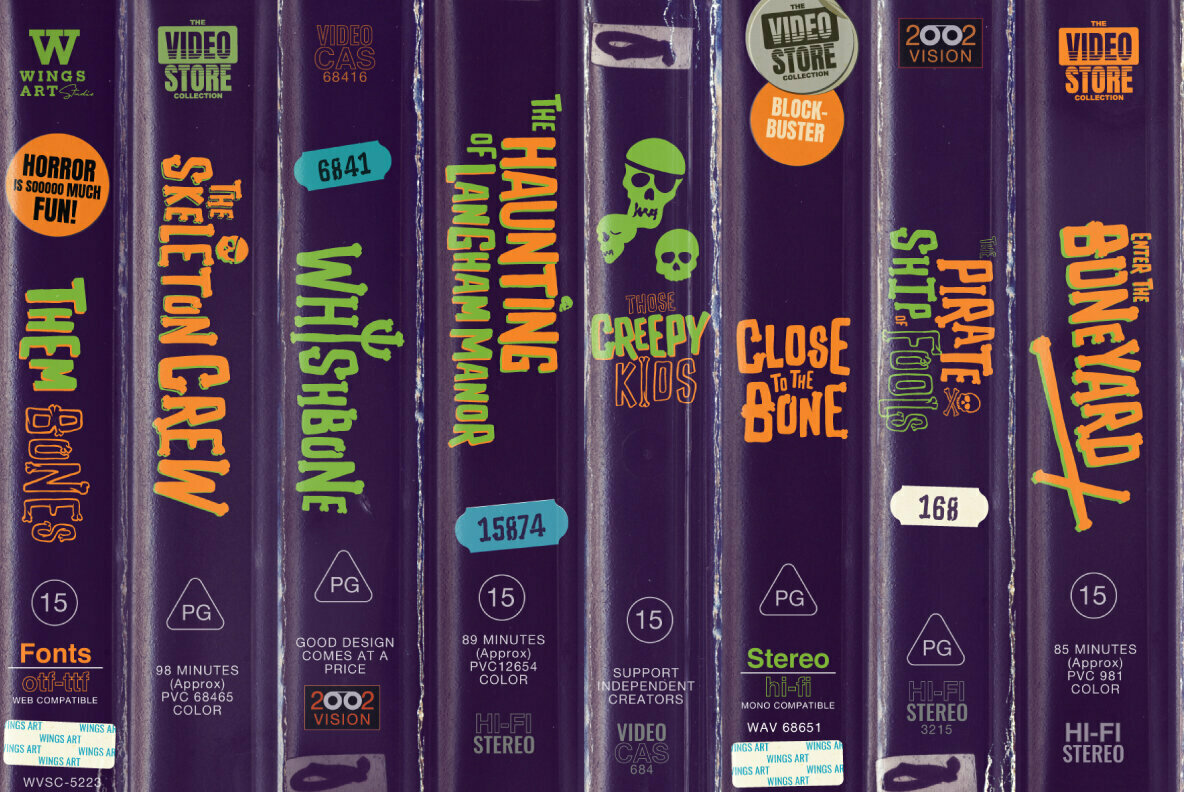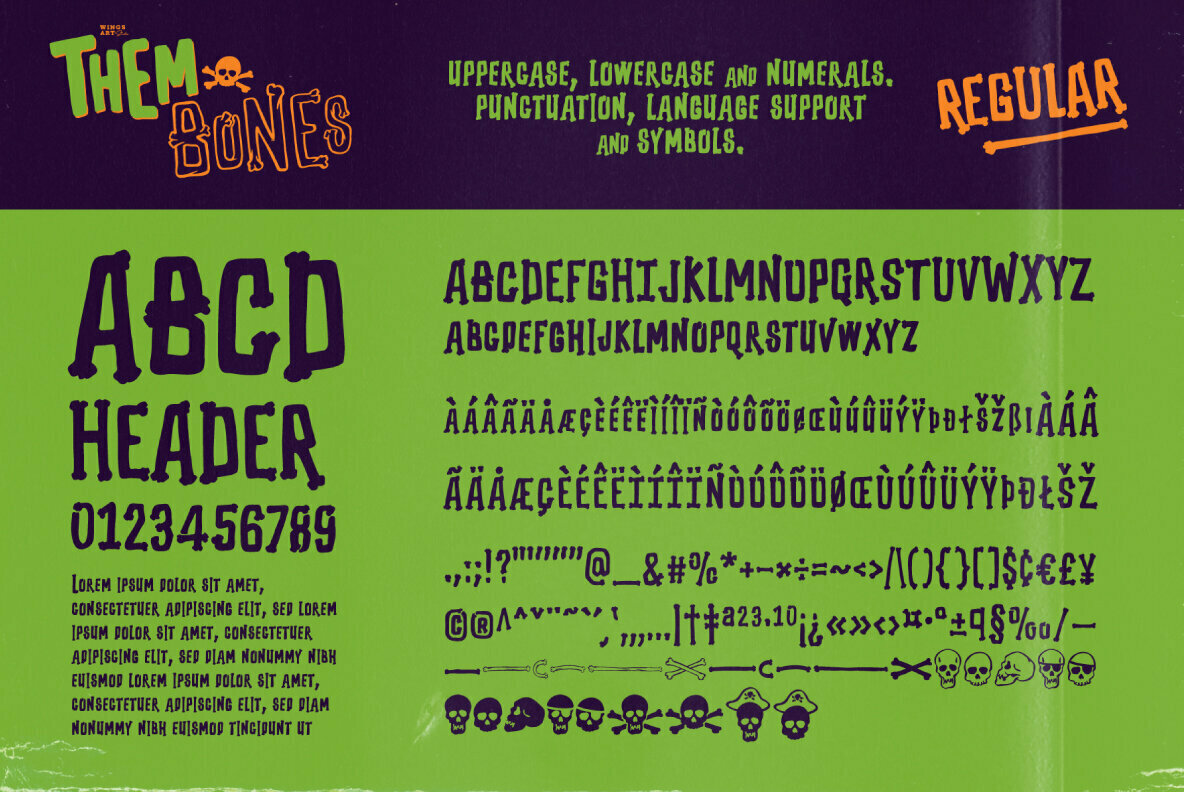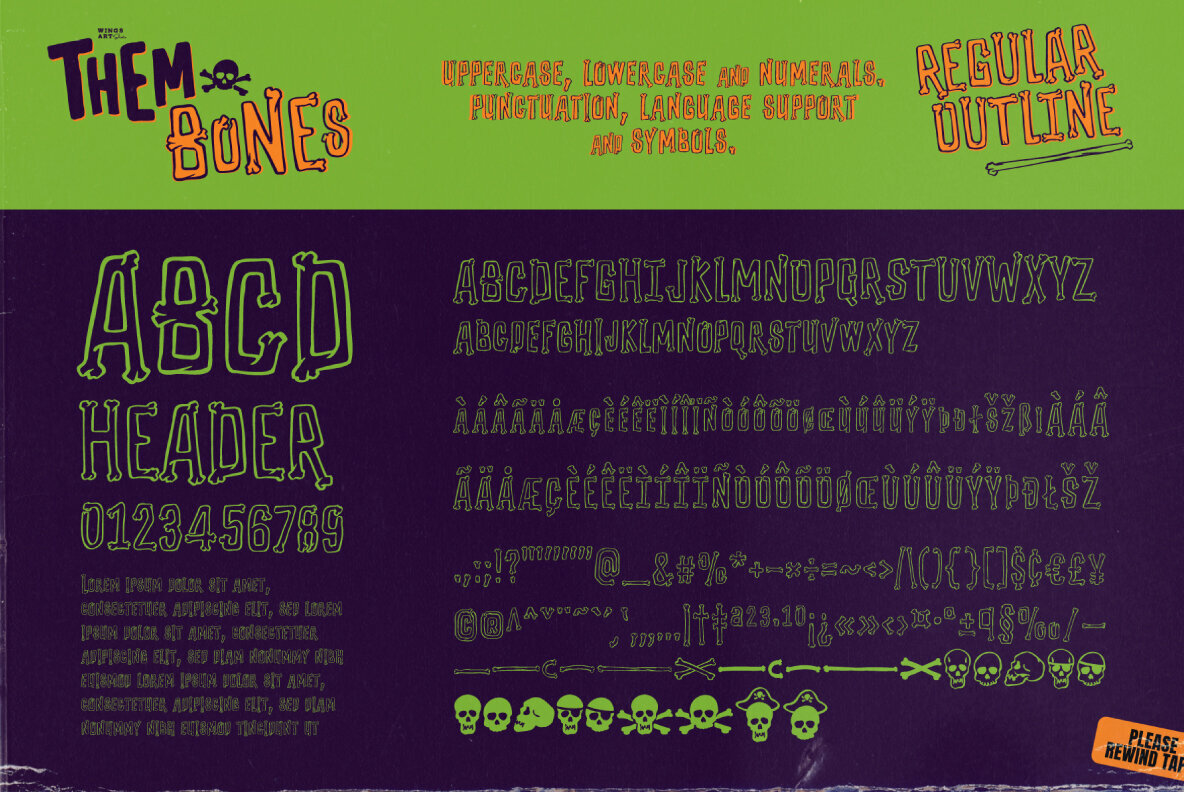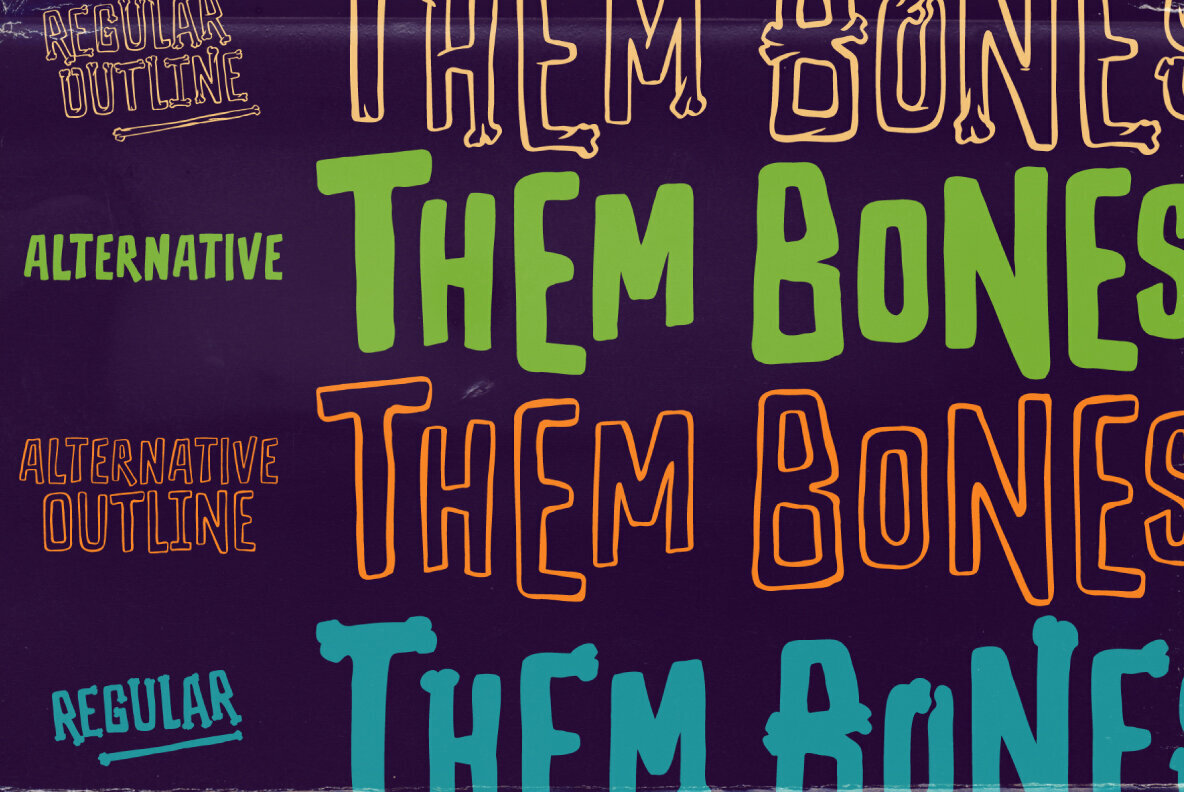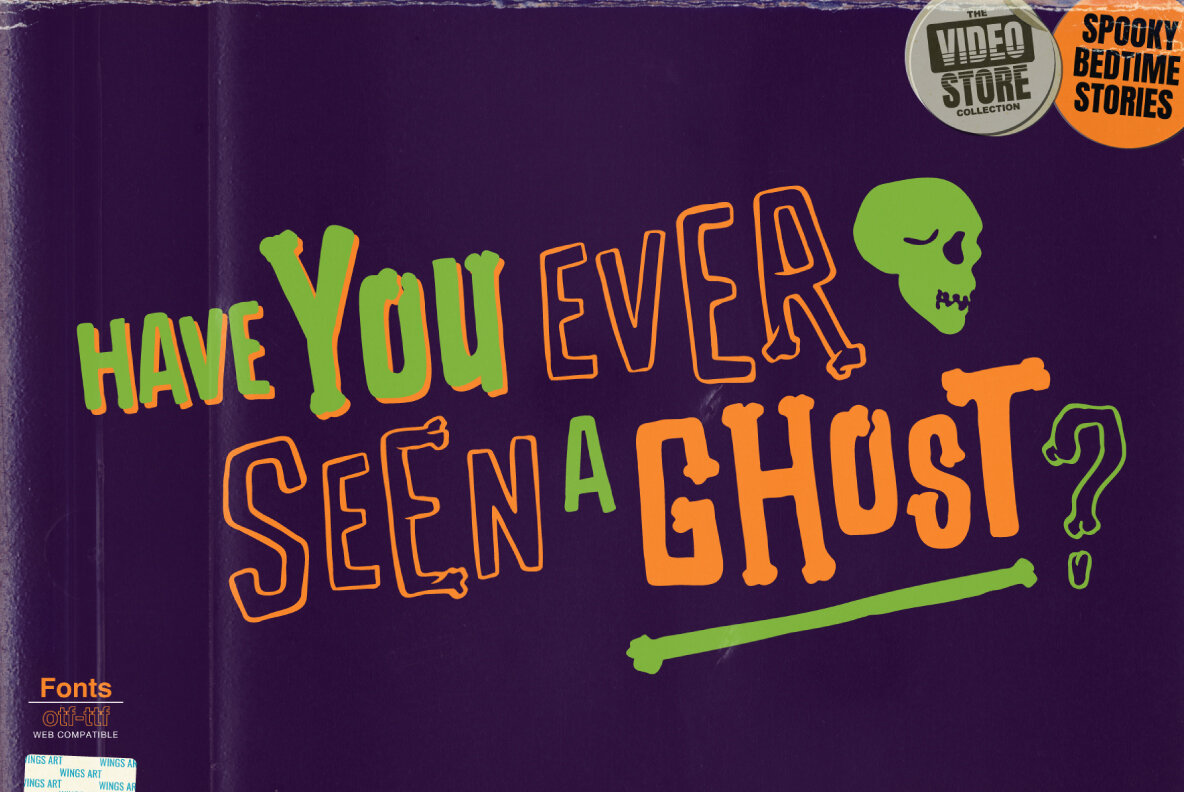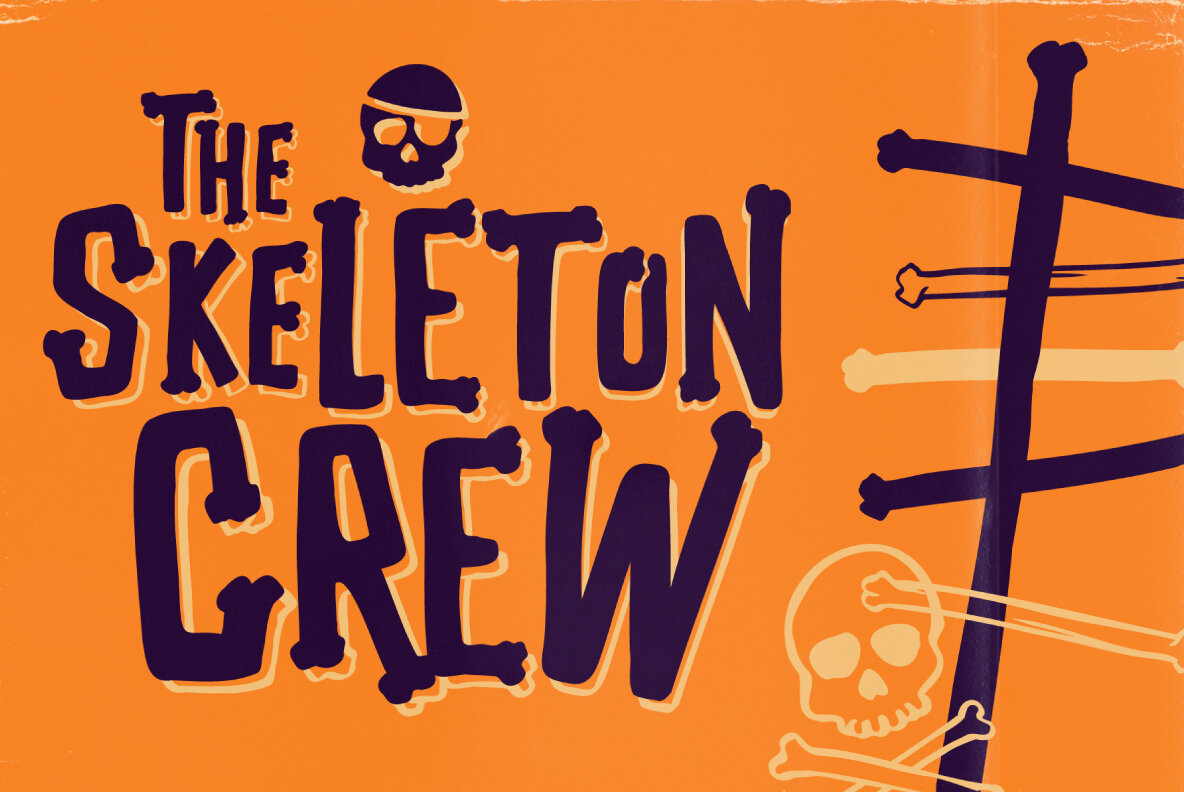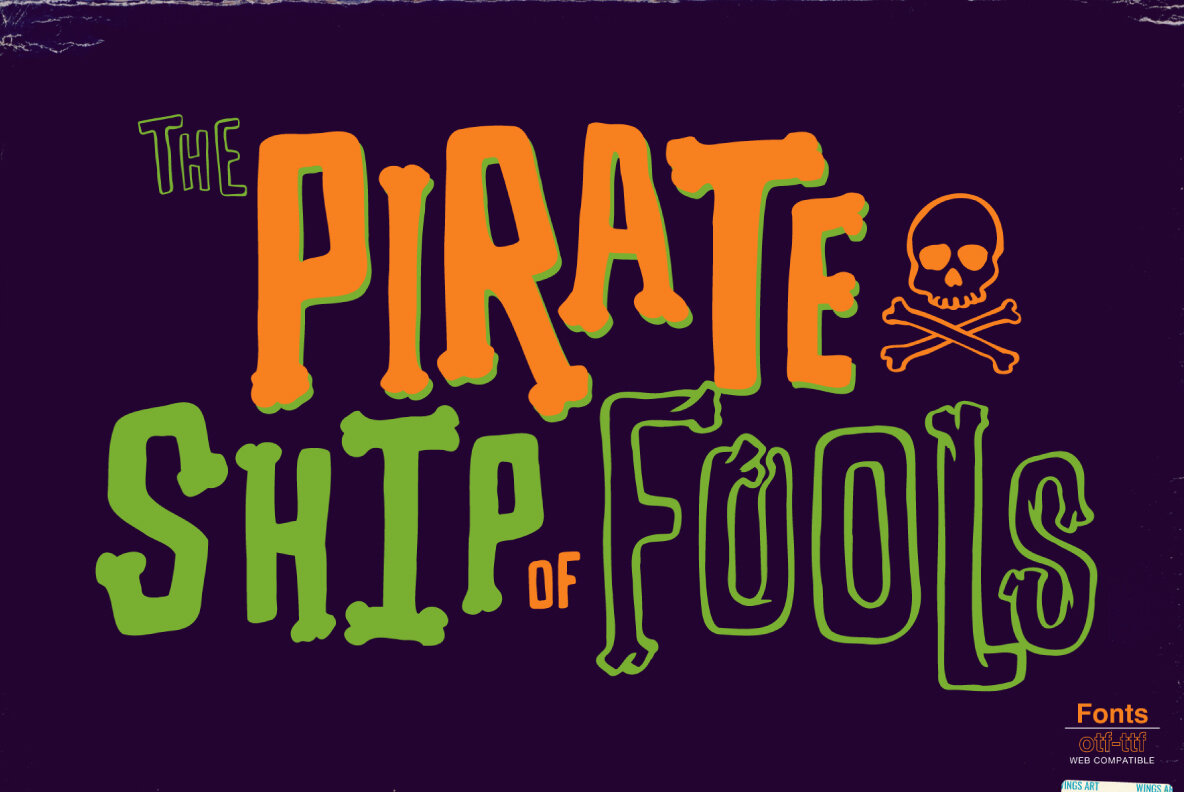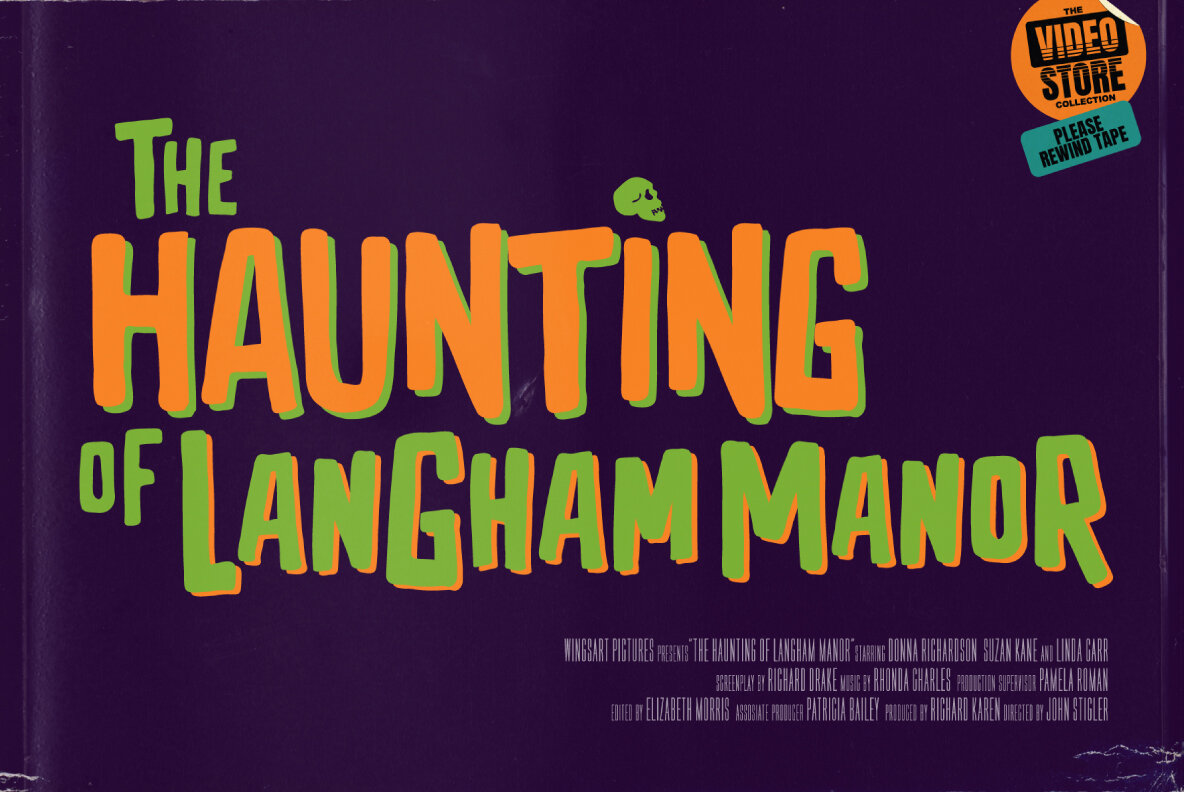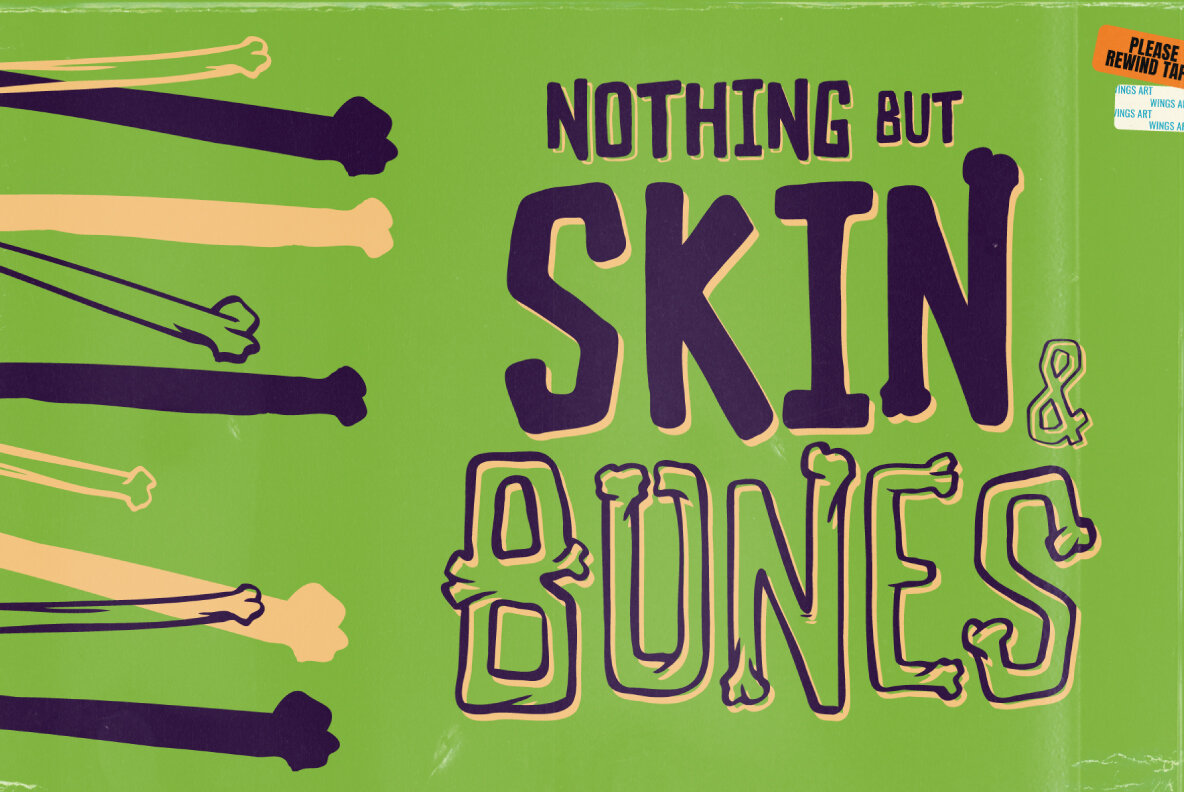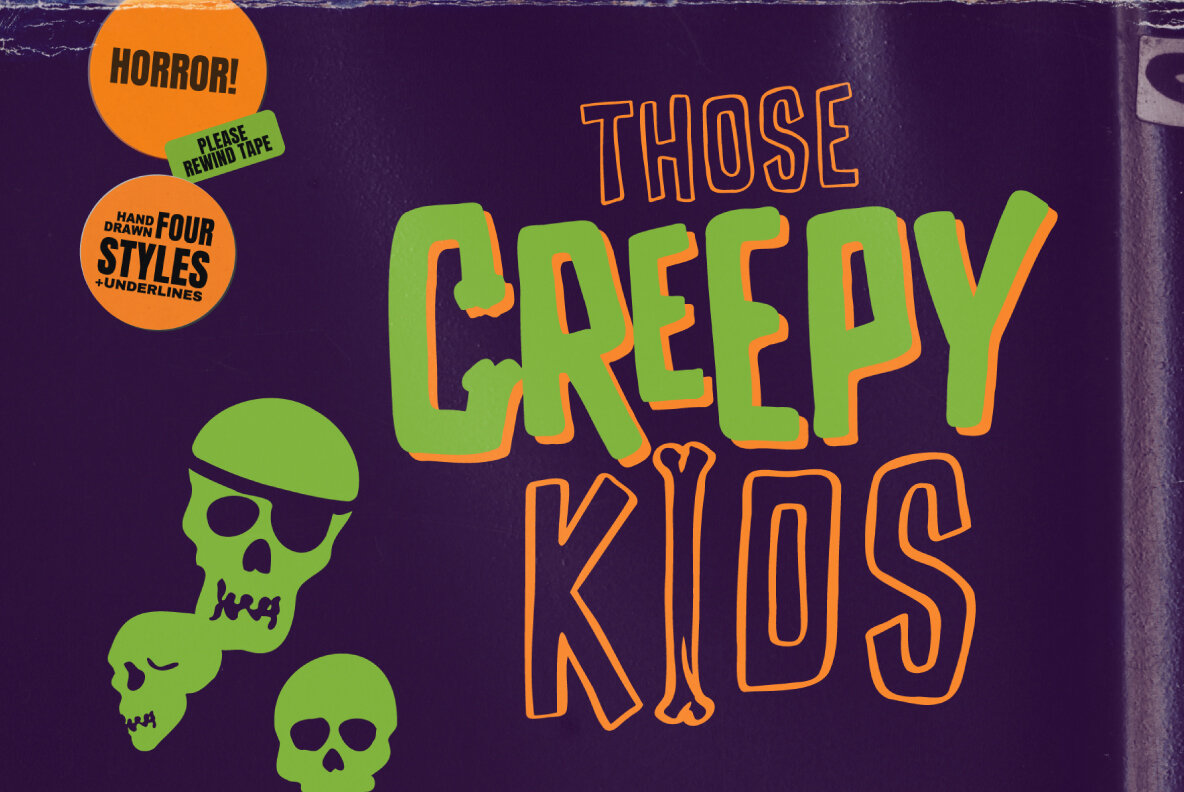
Them Bones Font
Them Bones is a hand-drawn, spooky, ghost pirate, cartoon font for Halloween.
Them Bones is a hand-drawn and spooky font made from the remains of ancient skeletons and ghostly pirate ships. It has a fun, light-hearted design inspired by campfire tales, Saturday morning cartoons, kids adventure movies and vintage comic books.
This unique all-caps font comes in two flavours - a novelty design that’s drawn to appear like old bones, and a clean, versatile alternative that works great on it’s own or as contrasting characters. Each of these come with a hand-drawn outlined version with their imperfections intact for an authentic inky look.
It’s a great choice for light-hearted Halloween designs or adventure stories with a fun, gruesome edge!